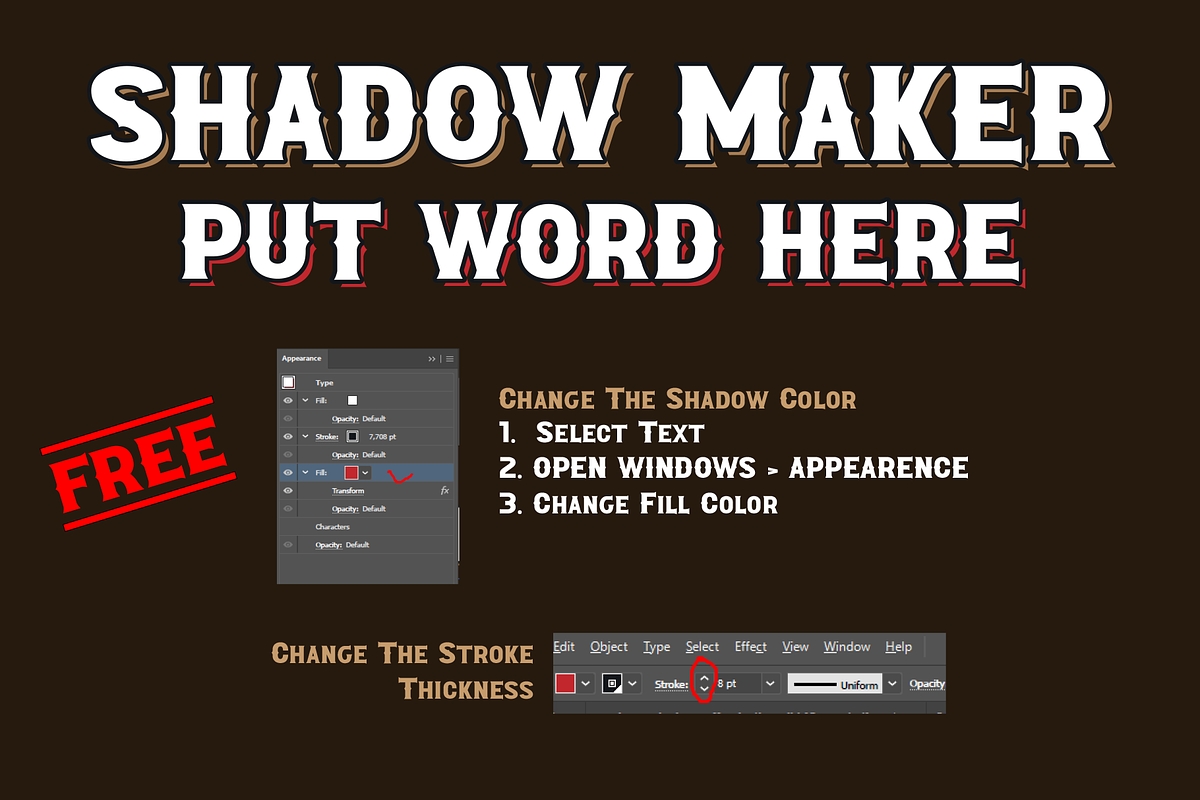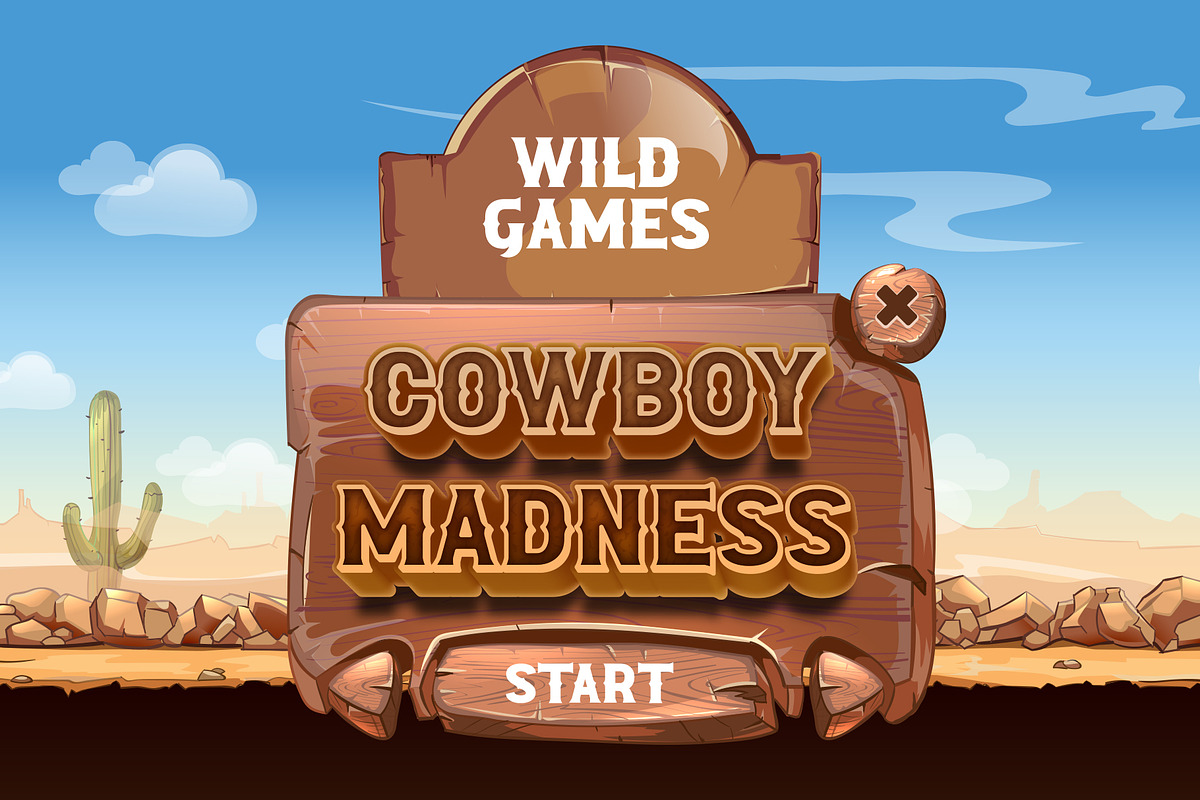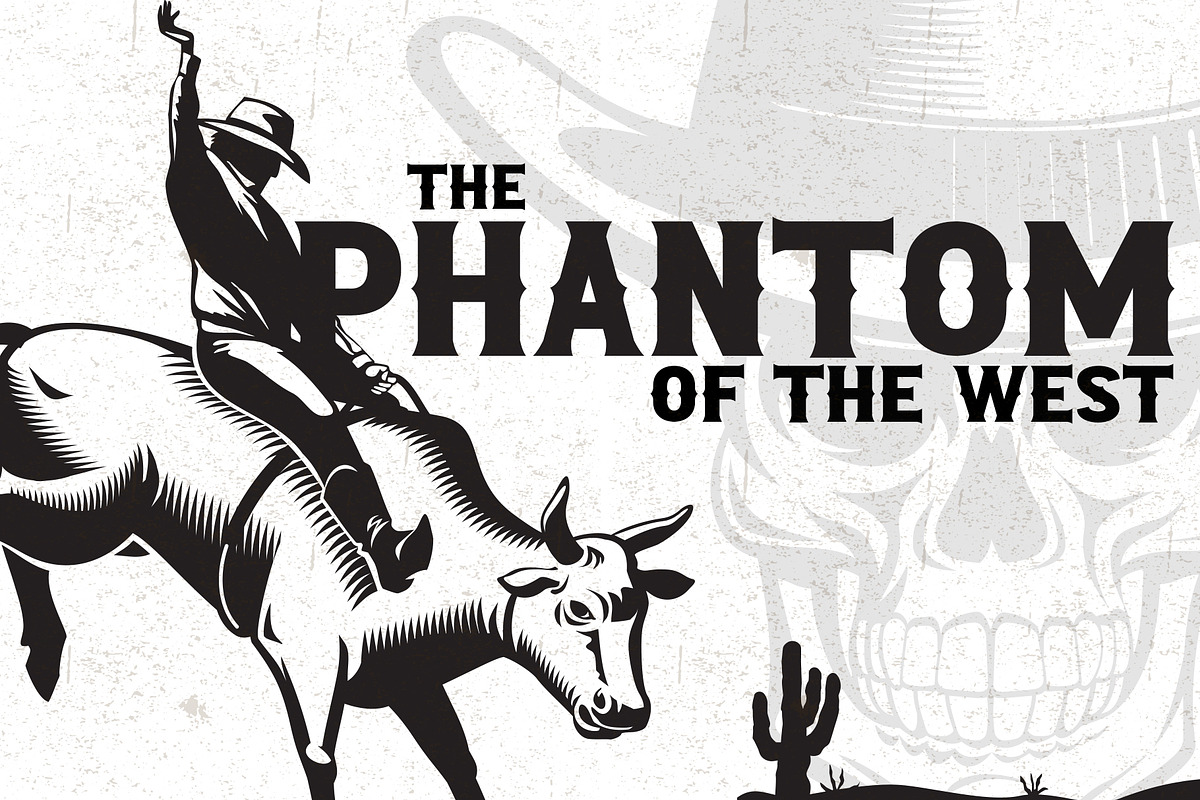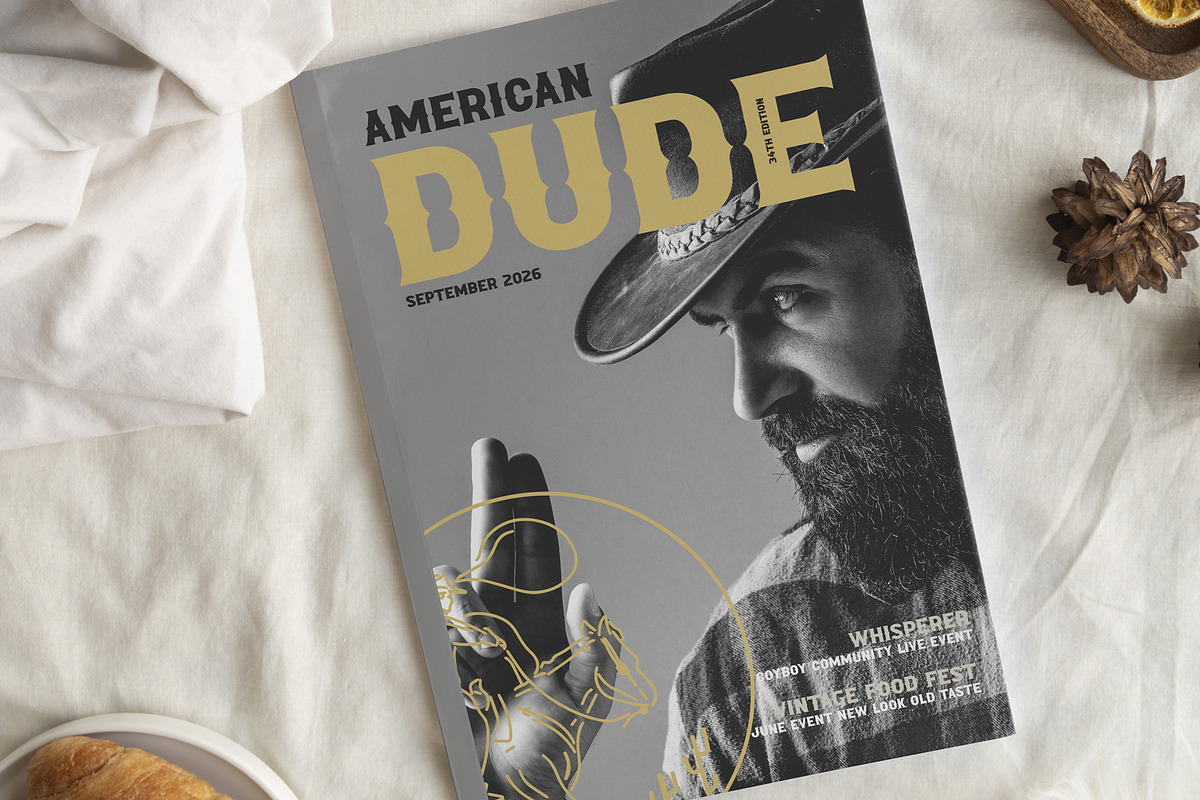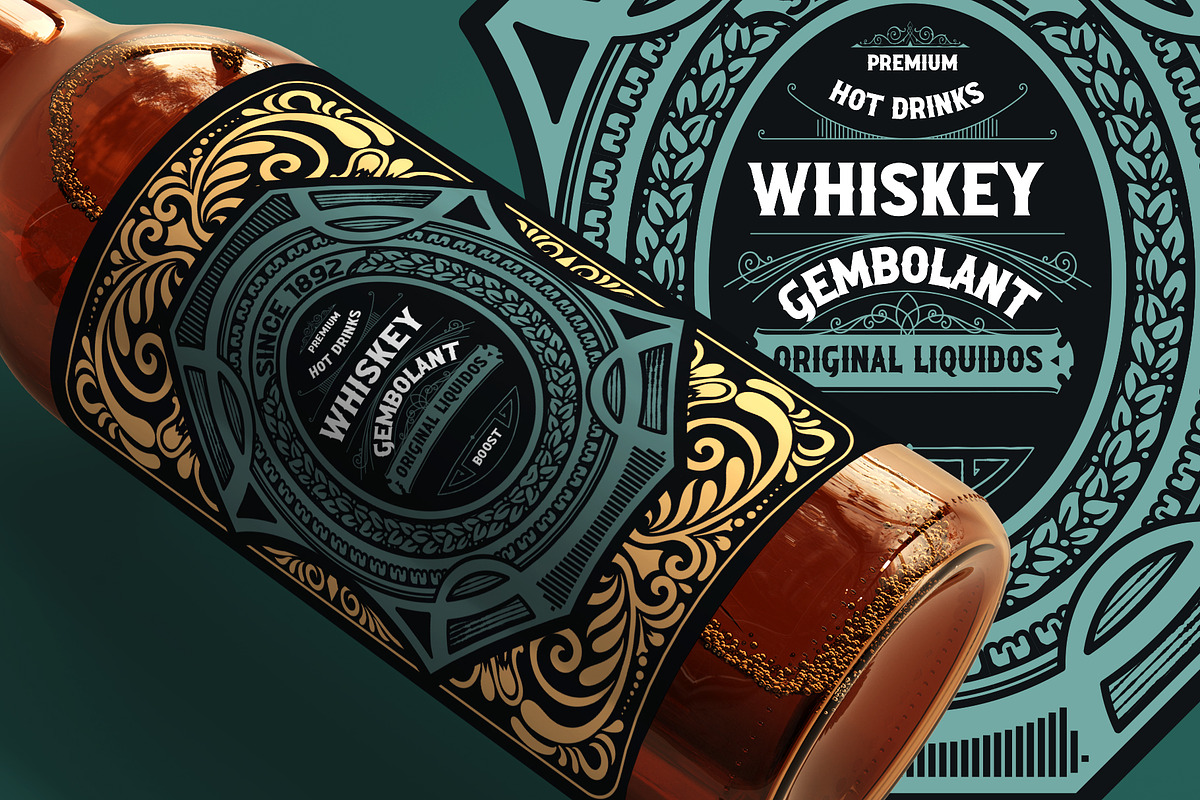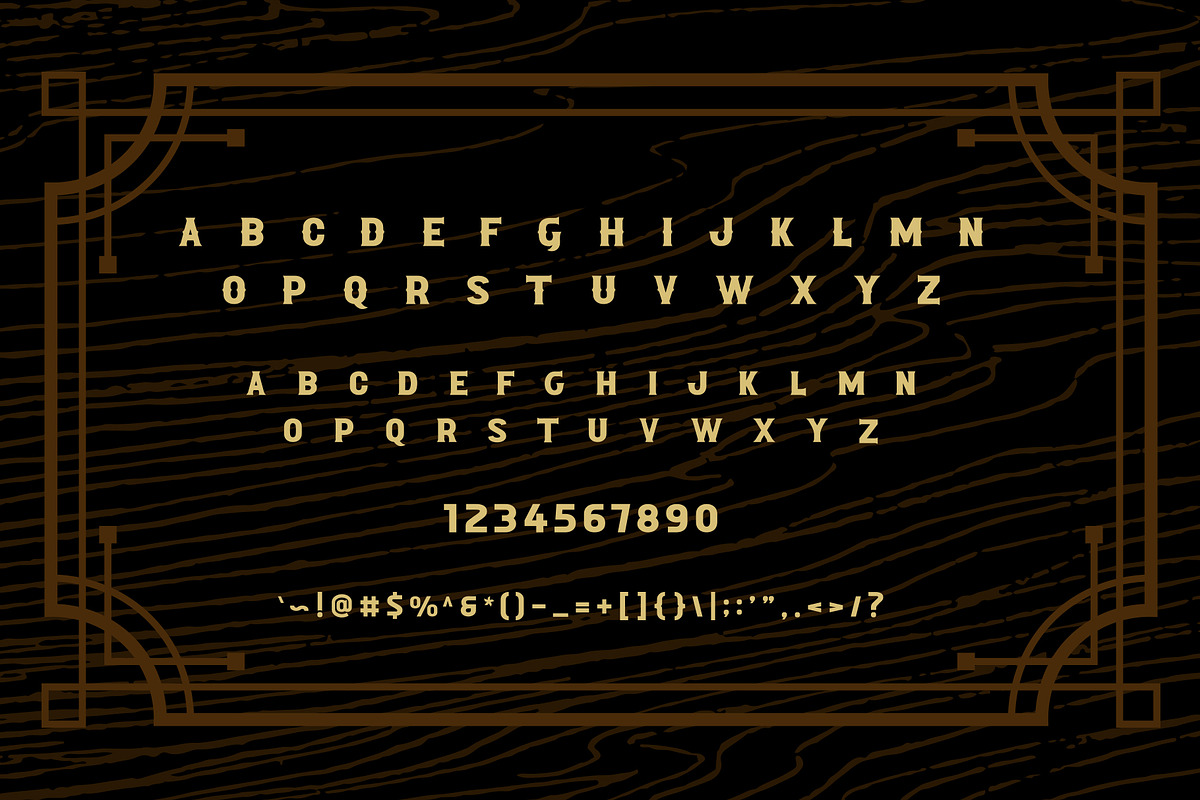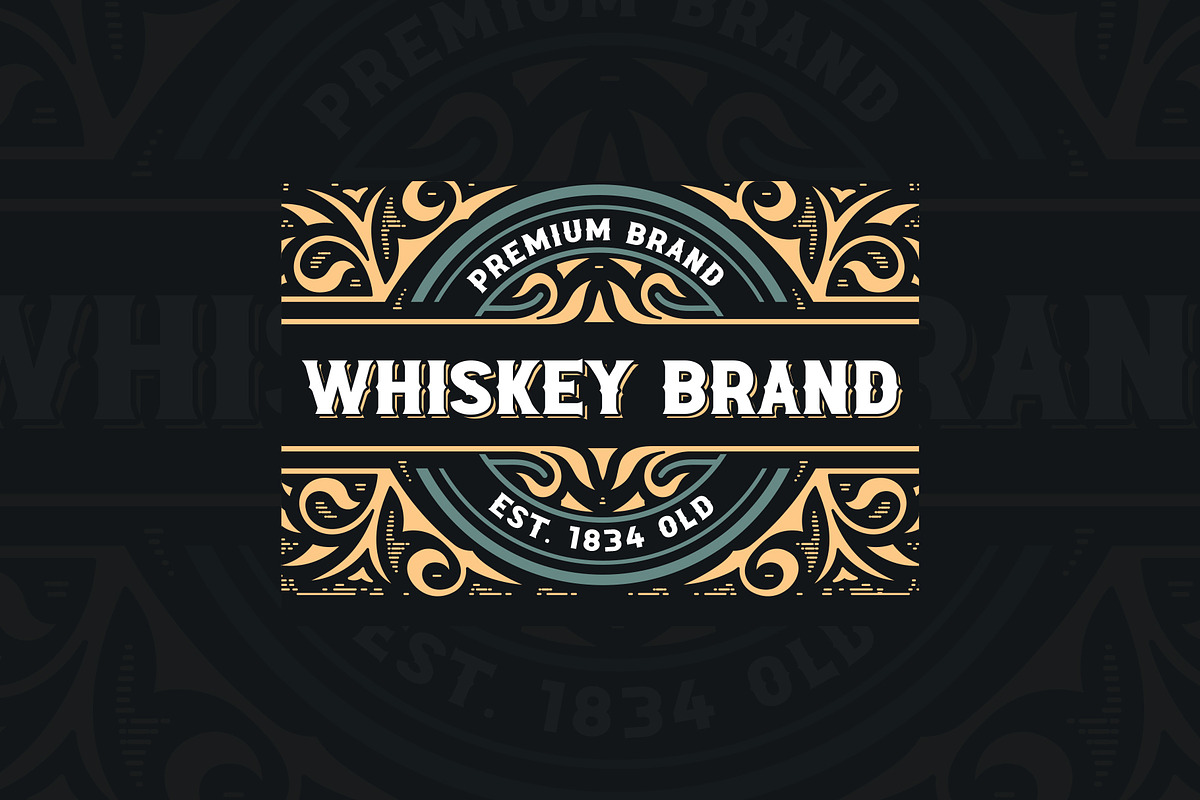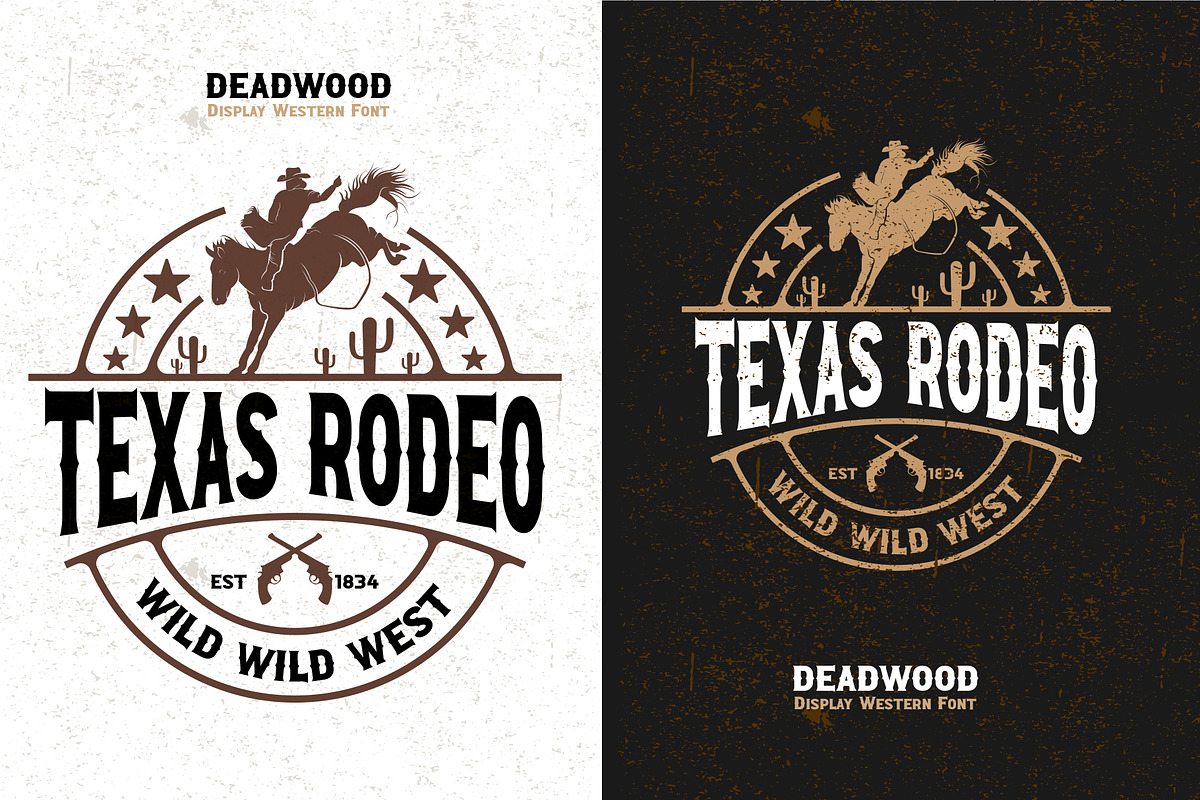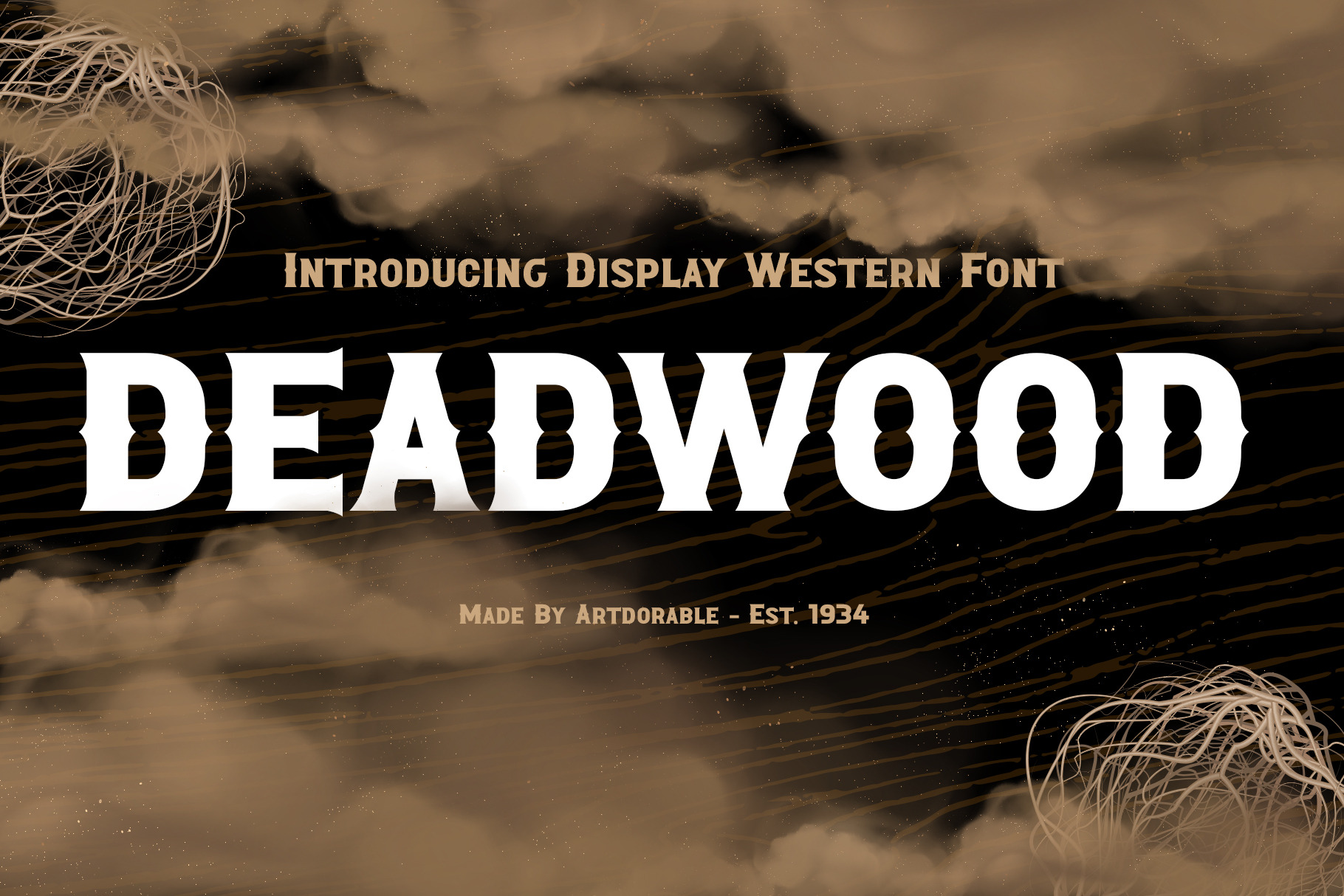
Deadwood - Display Font
Deadwood - Display Western Font
Introducing Deadwood - Display Western Font an old western font made carefully handcrafted. The complete type from Caps and Lower Caps, numeric and punctuation. It's also have a modern touch suitable for logo text, brand label, magazine/publishing headlines and titles, or for any occasion.
Font features:
- All Caps and Small caps for lower case keyboard
- Numeric